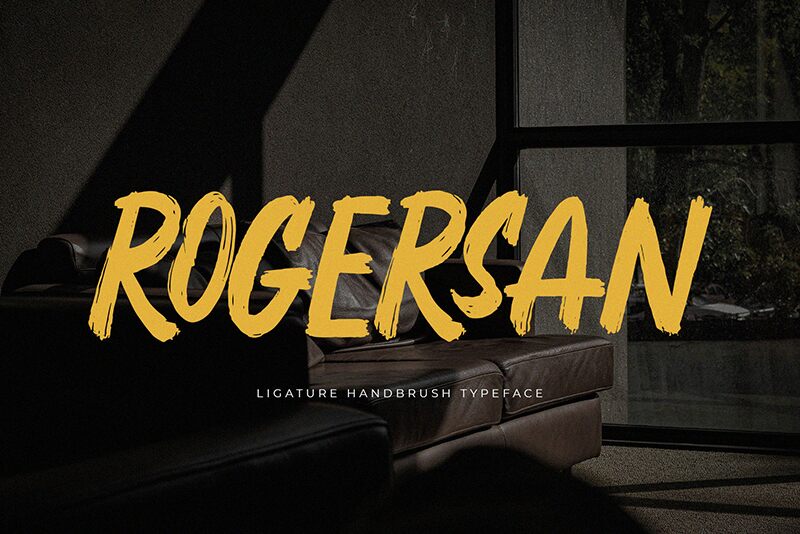
Rogersan, the latest brush font designed by BrandSemut, is a perfect fit for projects that require a touch of elegance and creativity. The semi-bold font style gives it a distinct presence without being overpowering, while the condensed width makes it ideal for designing eye-catching headlines and titles. Rogersan's brush strokes are smooth and fluid, adding a sense of motion to any project it's used on. From fashion magazines to food blogs, Rogersan is versatile enough to suit any creative endeavor. Get your hands on this stunning typeface today and experience its magic firsthand!
Rogersan